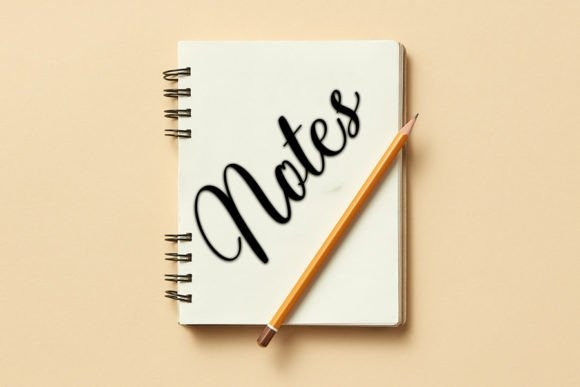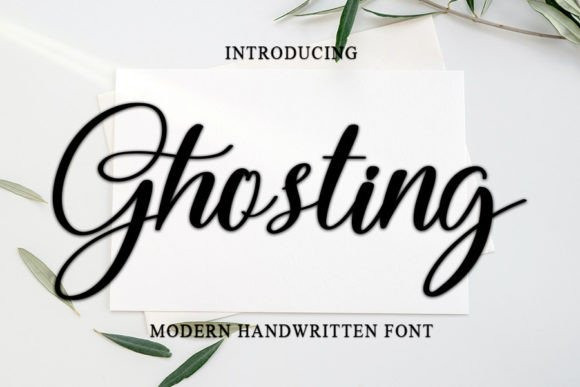
Ghostings Font
Ghosting Script Font is a trendy handwritten font with a contemporary atmosphere and impeccable form, inspired by a timeless classic calligraphy. It will add elegance and class to any of your design projects.